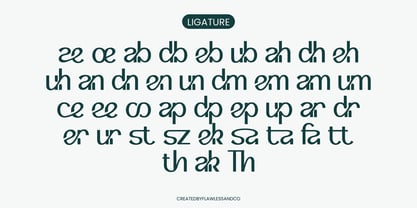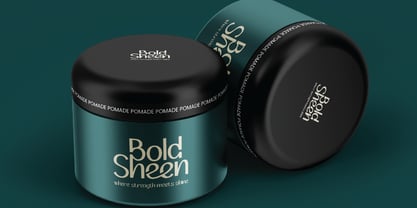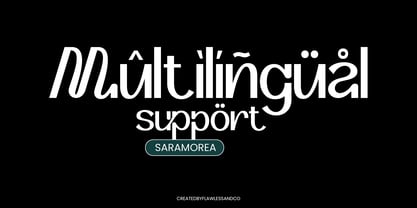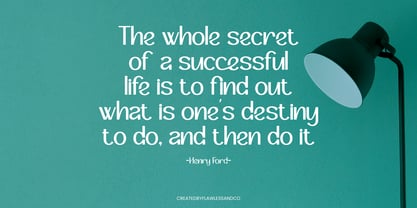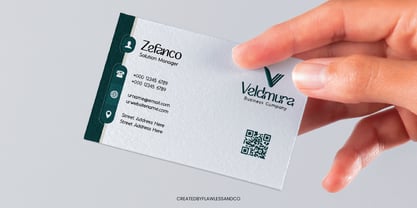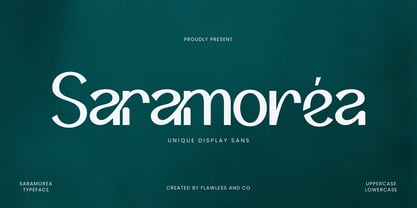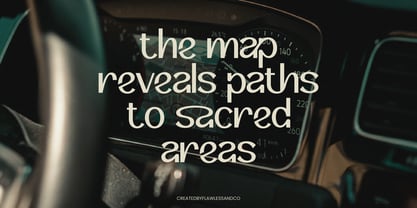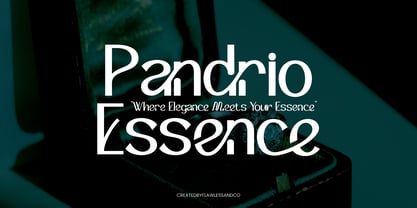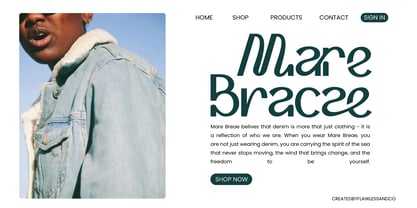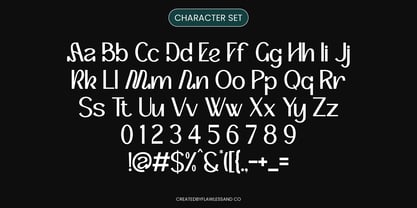
Saramorea
by Flawlessandco
The Saramorea Font Family was designed by Achmad Yani and published by Flawlessandco. Saramorea contains 1 styles. More about this family
Saramorea is an unique display typeface that blends expressive style with artistic elegance. Featuring high-contrast strokes, wide letterforms, and stylish curves, it’s perfect for luxury branding, fashion editorials, social media, and statement-making designs. Equipped with alternates, ligatures, and multilingual support, Saramorea brings sophistication and dramatic flair to any layout. Ideal for designers and brand creators who value premium aesthetics, Saramorea helps your visuals stand out with confidence and creativity. Features : Multilingual, Uppercase alphabet A-Z, Lowercase alphabet a-z, Numbers 0-9, Some punctuation, Alternates & Ligatures NOTE: For all the characters are also available, accessible in the Adobe Illustrator Glyphs Panel, or in Adobe Photoshop Character Open Type Panel. If you need help, just write me! Thanks so much for checking out my shop!
Designers: Achmad Yani
Foundry: Flawlessandco